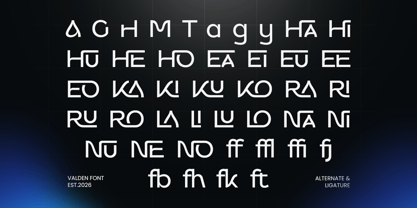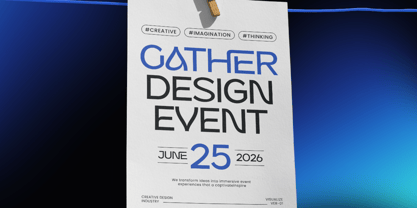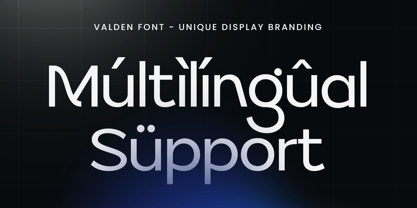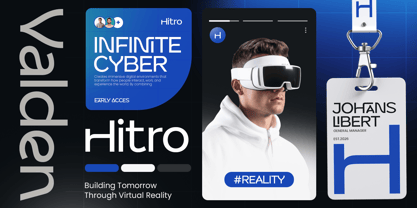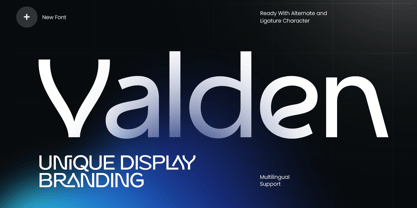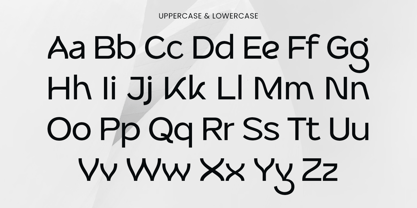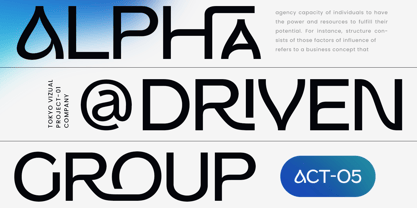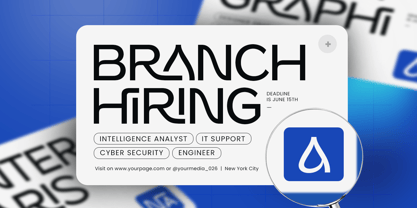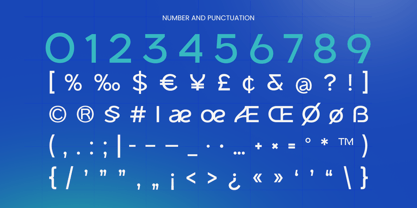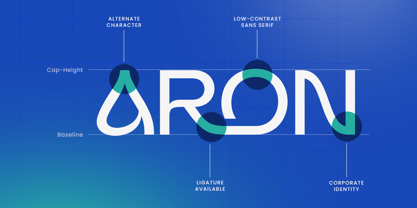
Valden
La famille de polices Valden a été conçue par Kusnidah Marpuah et publiée par Dareco Studio. Valden contient 1 styles. En savoir plus sur cette famille
Valden – Unique Display Logo Branding Font is a modern display typeface created to bring originality and character into contemporary branding. Inspired by experimental logo design and distinctive typography, Valden is designed for projects that require a bold and memorable visual identity.
With its unique letterforms, balanced structure, and modern design details, Valden delivers a strong personality while maintaining clarity and usability. The typeface is crafted to stand out in logo compositions and headline layouts, making it an excellent choice for creative branding.
Valden Font Features
• Complete character set including uppercase, lowercase, numerals, symbols, and punctuation
• Unique display letterforms optimized for logo and branding design
• OpenType features included to support creative typography and branding layouts
Valden is Perfect For
• Creative logo and brand identity design
• Modern startup and business branding
• Website headers and headline typography
• Marketing materials and promotional visuals
• Product branding and digital campaigns
• Contemporary design projects requiring distinctive typography
Whether you are developing a unique brand identity, designing a bold logo, or creating modern visual communication, Valden helps your design stand out with originality and strong typographic character.